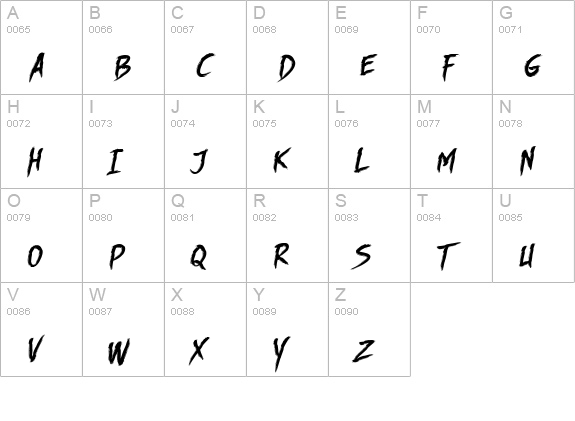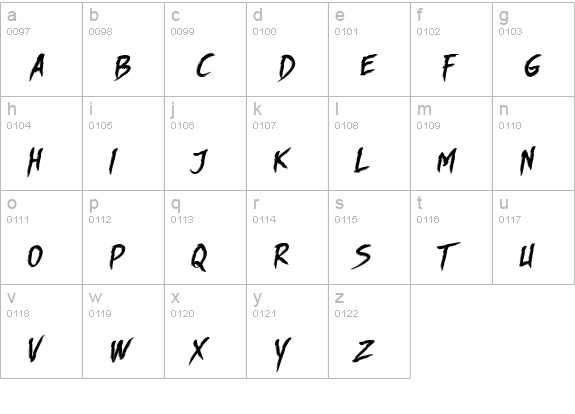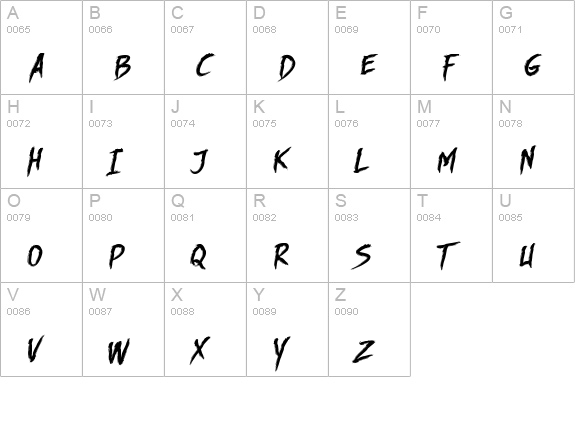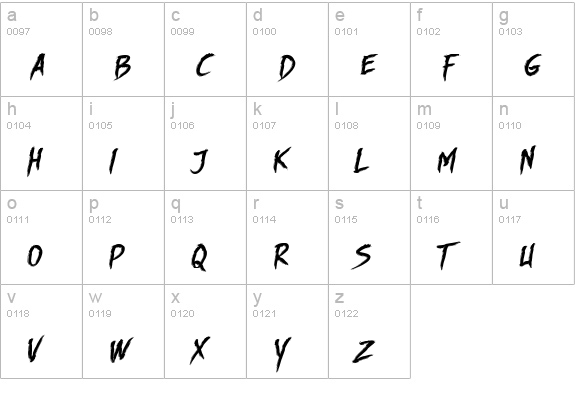
DHF Story Brush Slanted Font Details
The DHF Story Brush Slanted font is a stunning display typeface that effortlessly captures the beauty and fluidity of handwritten brush strokes. Its slanted design adds a touch of dynamic energy and modernity to any project, making it perfect for eye-catching headlines, branding materials, packaging designs, and more. This font exudes a sense of elegance and creativity, with its unique letterforms that seem to dance across the page. Each character is meticulously crafted to showcase the natural variations and imperfections of a brush stroke, giving your text a truly authentic and artistic feel. One of the best things about the DHF Story Brush Slanted font is that it is absolutely free. Yes, you heard it right – this incredible typeface is freely available to download at FontsMarket.com. With just a few clicks, you can add this gem to your font collection without spending a dime. Whether you're a professional designer looking to elevate your work or someone who simply appreciates the beauty of typography, the DHF Story Brush Slanted font is a must-have. Its versatility and effortless charm make it the perfect choice for a wide range of projects, from invitations and greeting cards to social media graphics and website designs. So why wait? Head over to FontsMarket.com and download the DHF Story Brush Slanted font today. Unleash your creativity and give your designs a touch of elegance and sophistication with this stunning typeface.